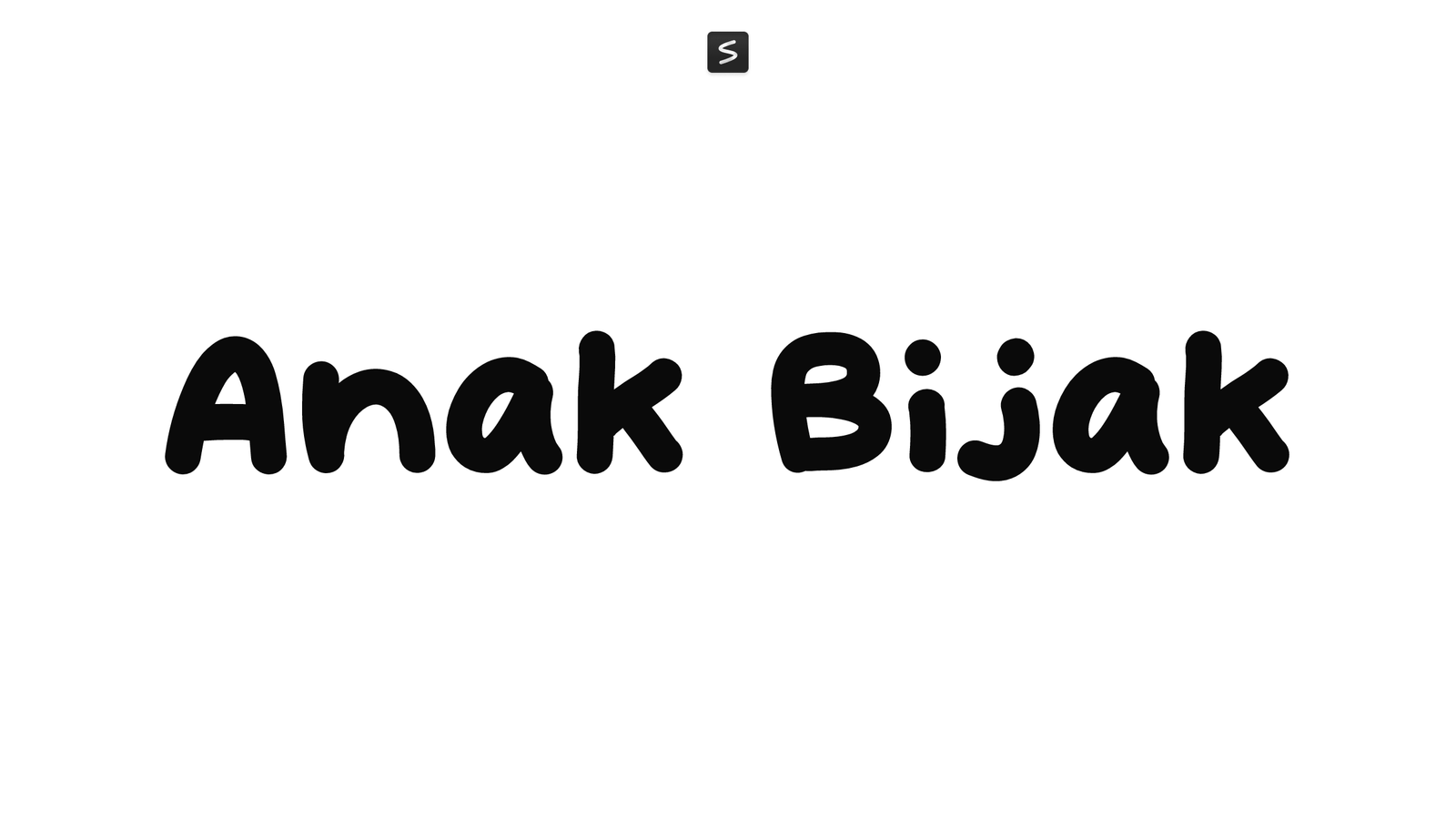
Anak Bijak is a rounded, bold sans-serif font created by Khurasan™. Its soft corners and even stroke weight give it a friendly, approachable character that works well for casual, playful designs. The typeface maintains strong legibility across sizes while keeping a lighthearted, comic-book feel.
This font suits projects that need warmth and clarity without formality. It works in posters, social media graphics, packaging, children’s books, game UI, or any design where a personable tone matters more than sophistication. The consistent letterforms and rounded edges make it easy to read while adding personality to headlines and body text alike.